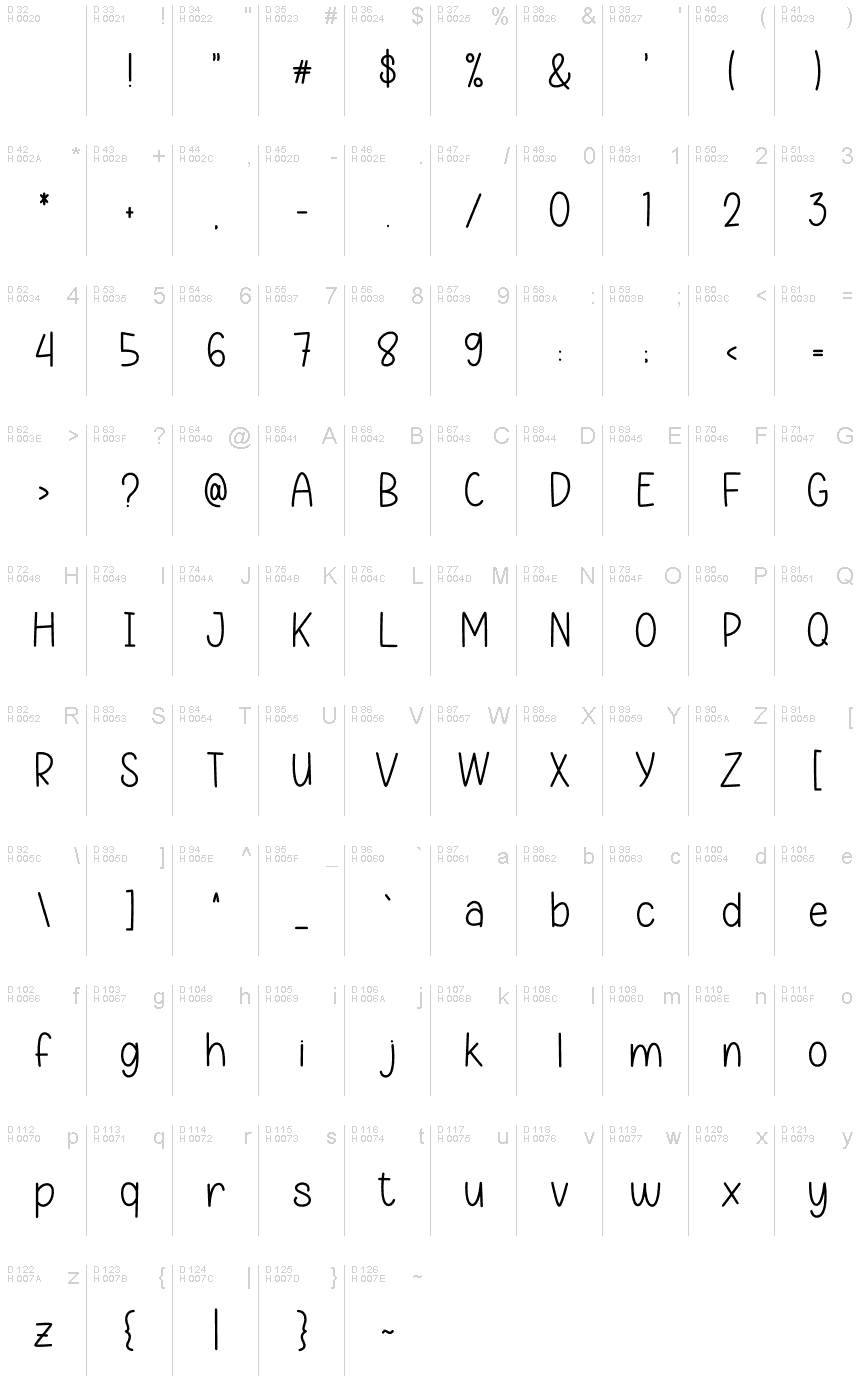
Simple Handmade
Introducing Simple Handmade, a light weight handwritten font designed by Letter Art Studio. Perfect for adding a personal touch to any project, from festive holiday cards to charming logo designs.